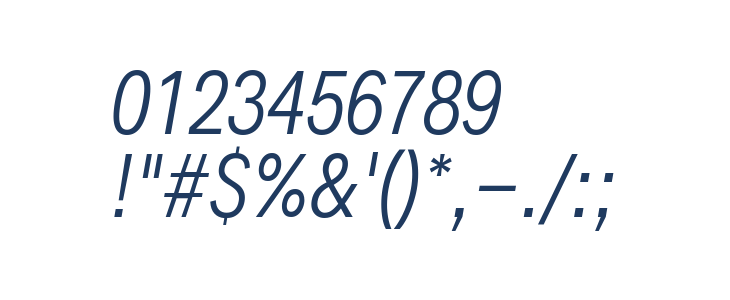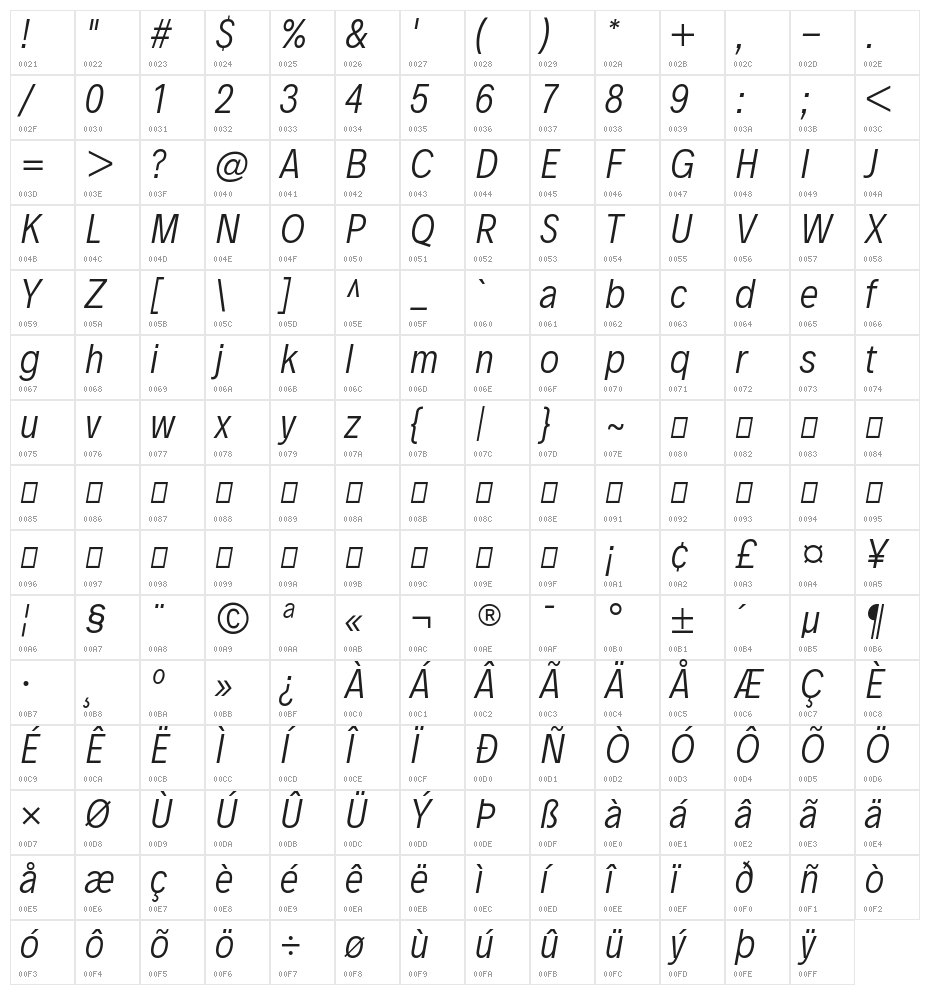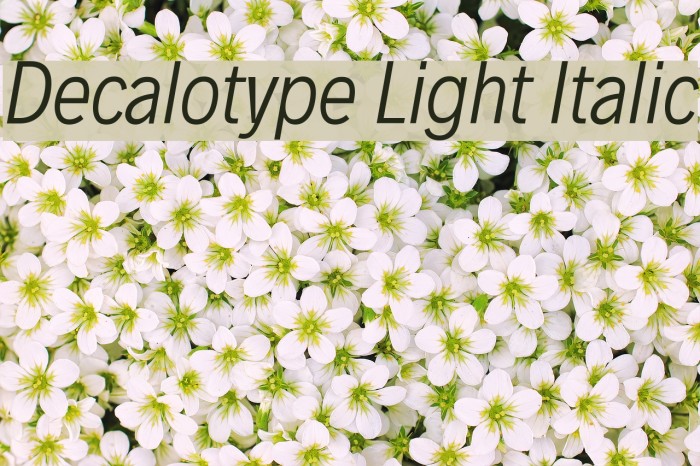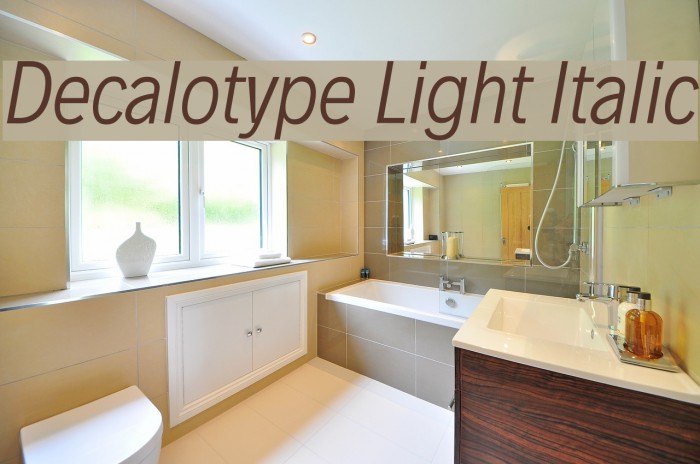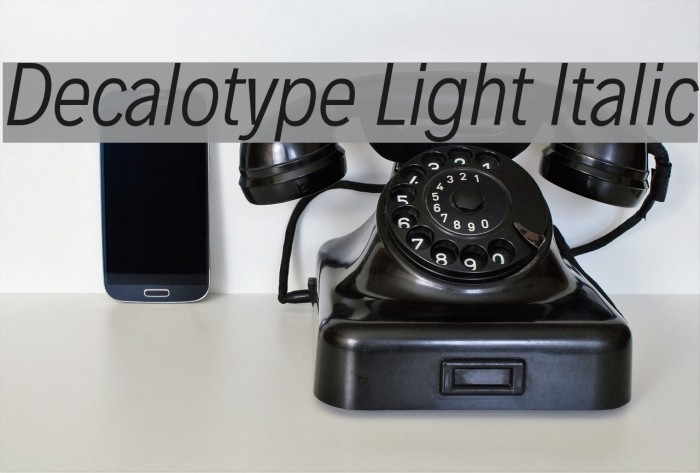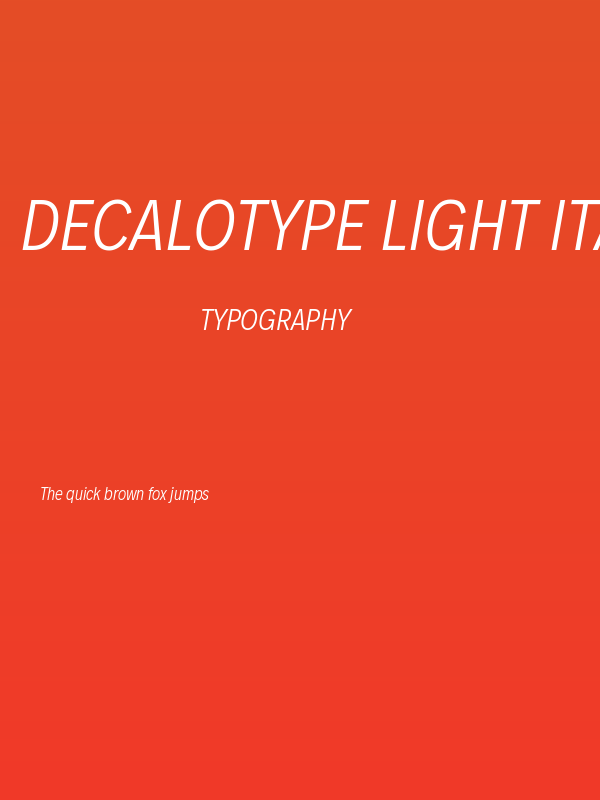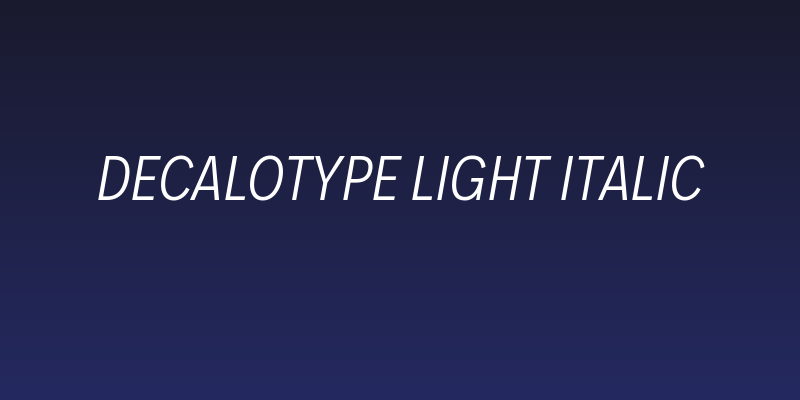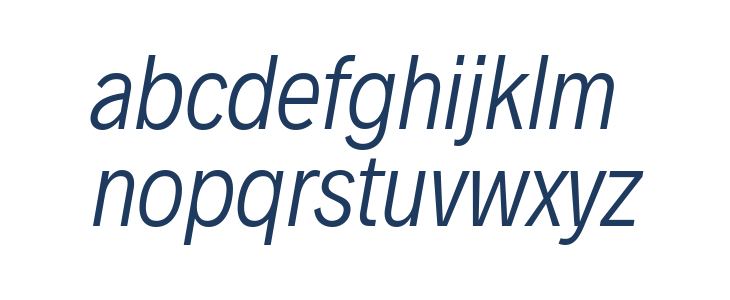
Decalotype Light Italic Font
Decalotype Light Italic Description
This font exhibits a sleek and modern design, characterized by its light weight and italicized style. The characters are elegantly slanted, providing a sense of motion and fluidity. The strokes are consistent and smooth, with a low contrast between thick and thin lines, contributing to its clean and minimalist appearance. The spacing between characters is normal, ensuring readability while maintaining a sophisticated look. This font is versatile, suitable for a variety of applications where a contemporary and stylish aesthetic is desired.
| Proposed Projects | Ideal for modern branding, elegant invitations, stylish websites, and contemporary editorial design. |